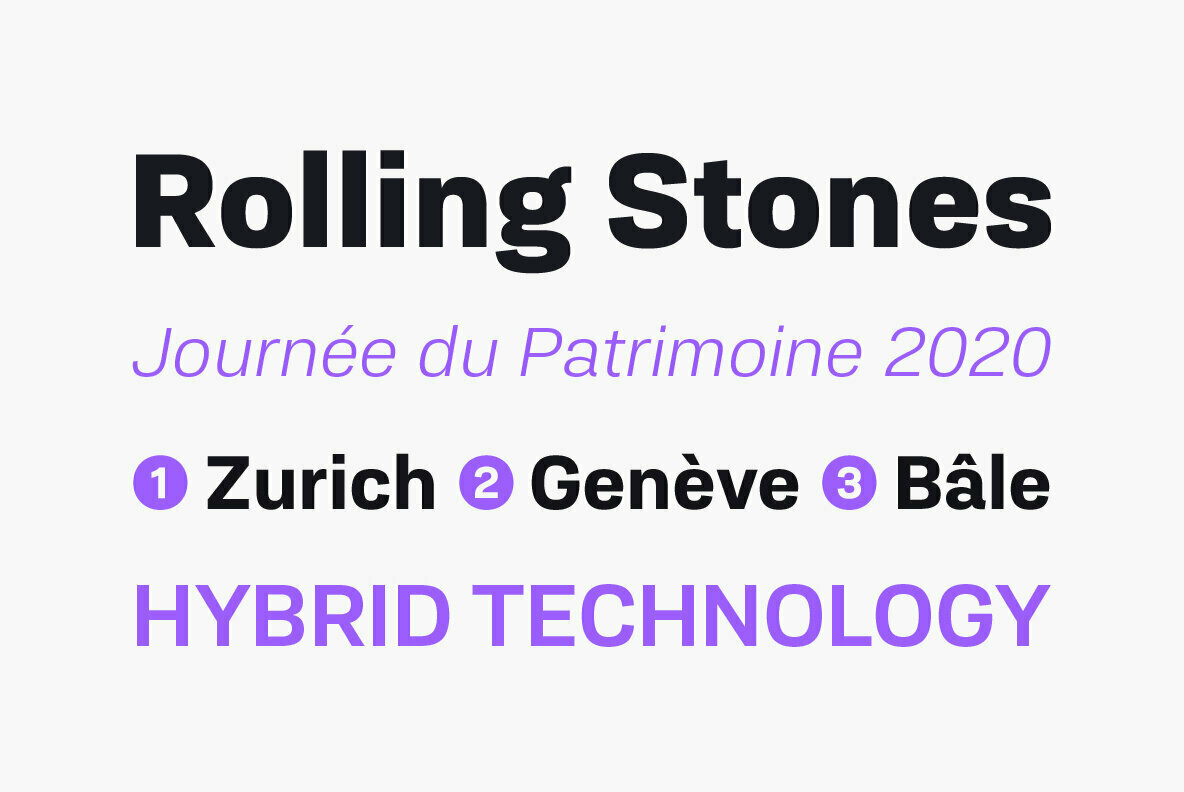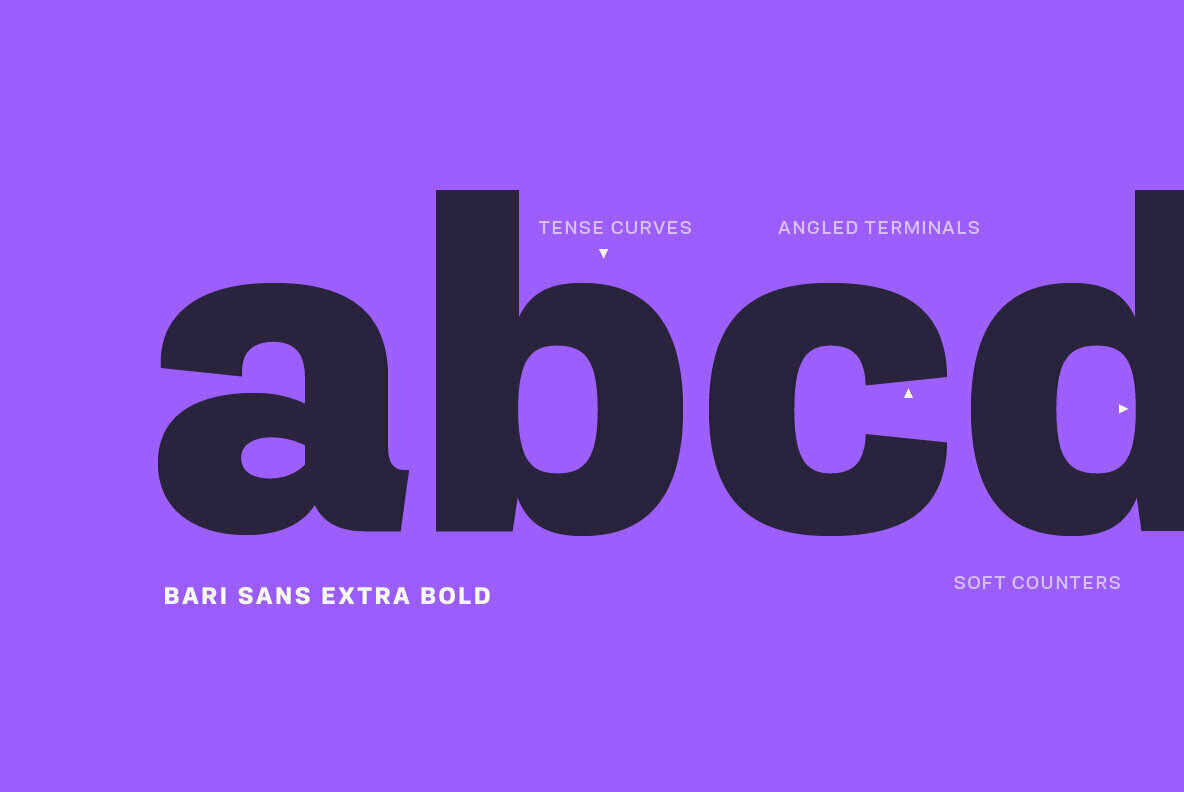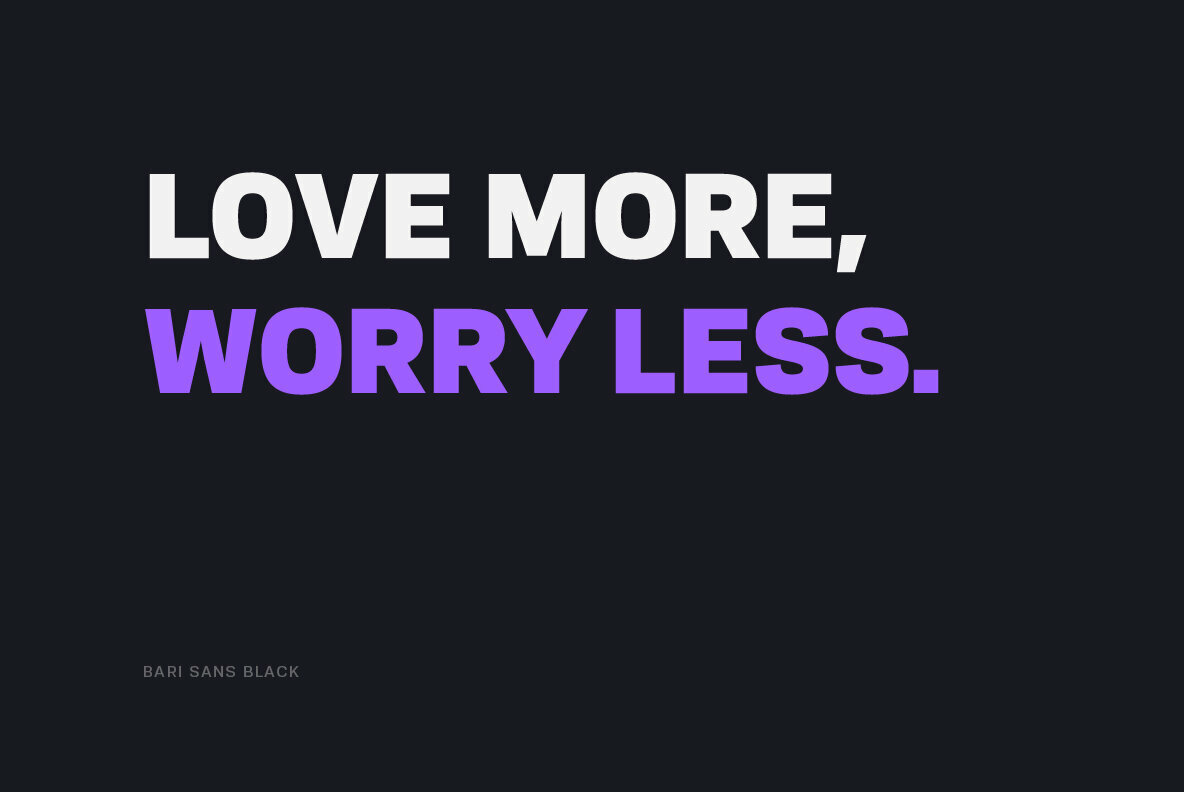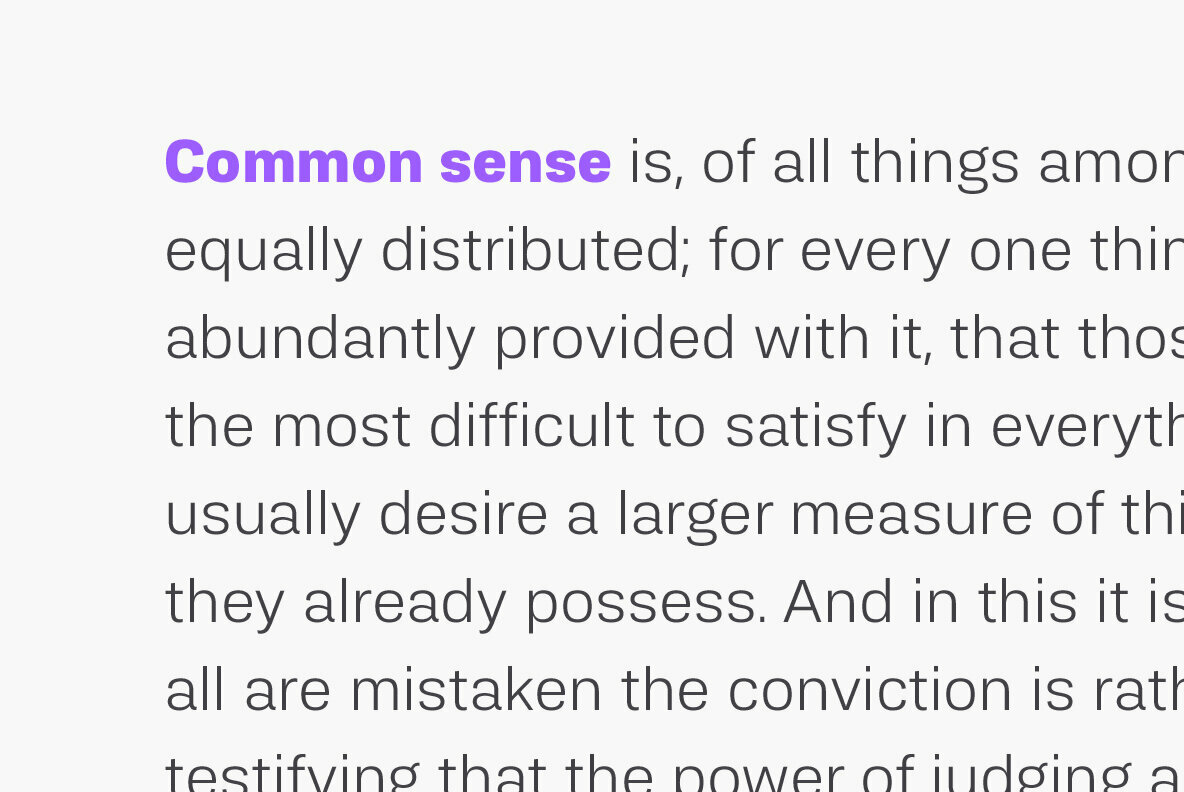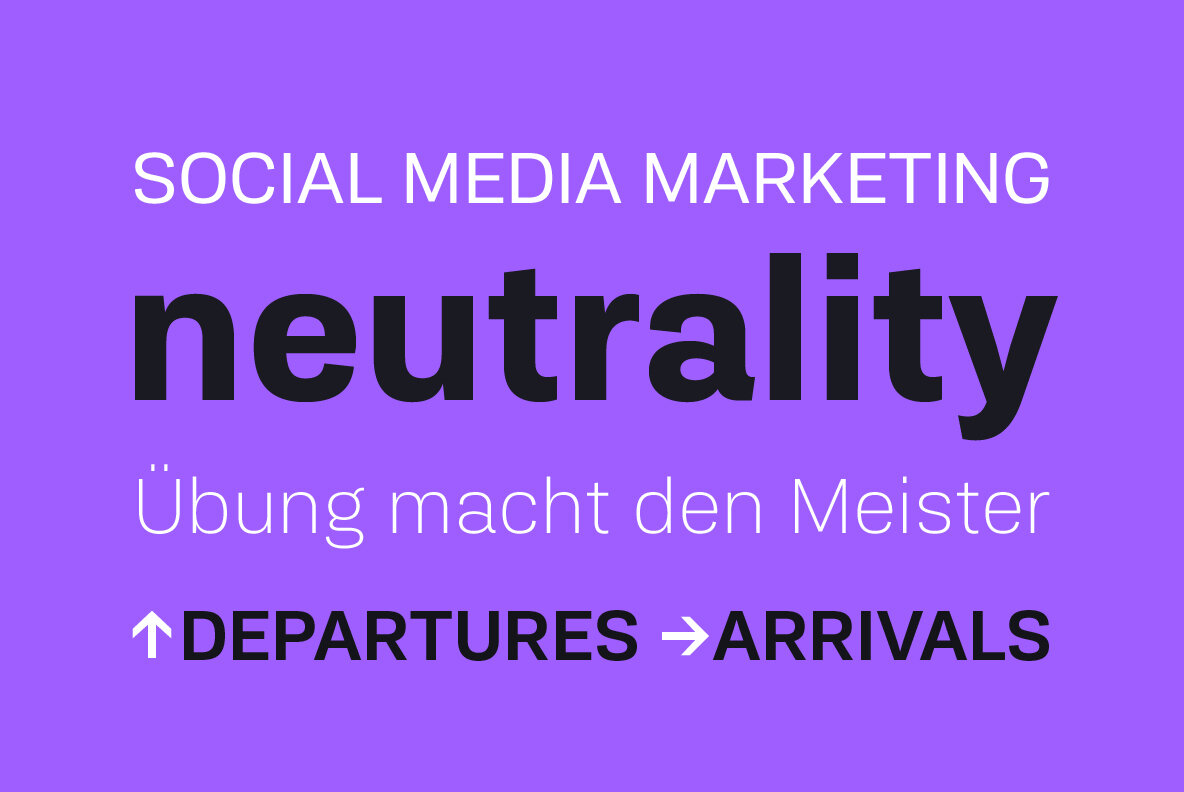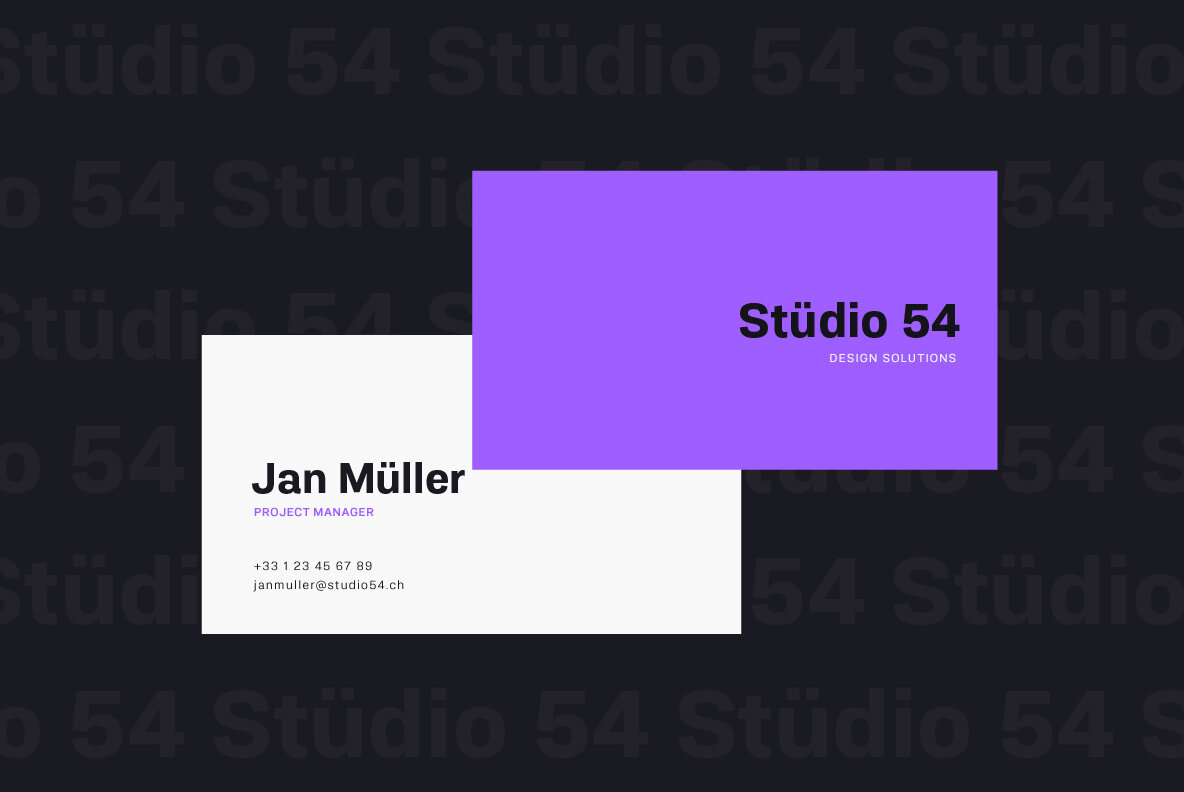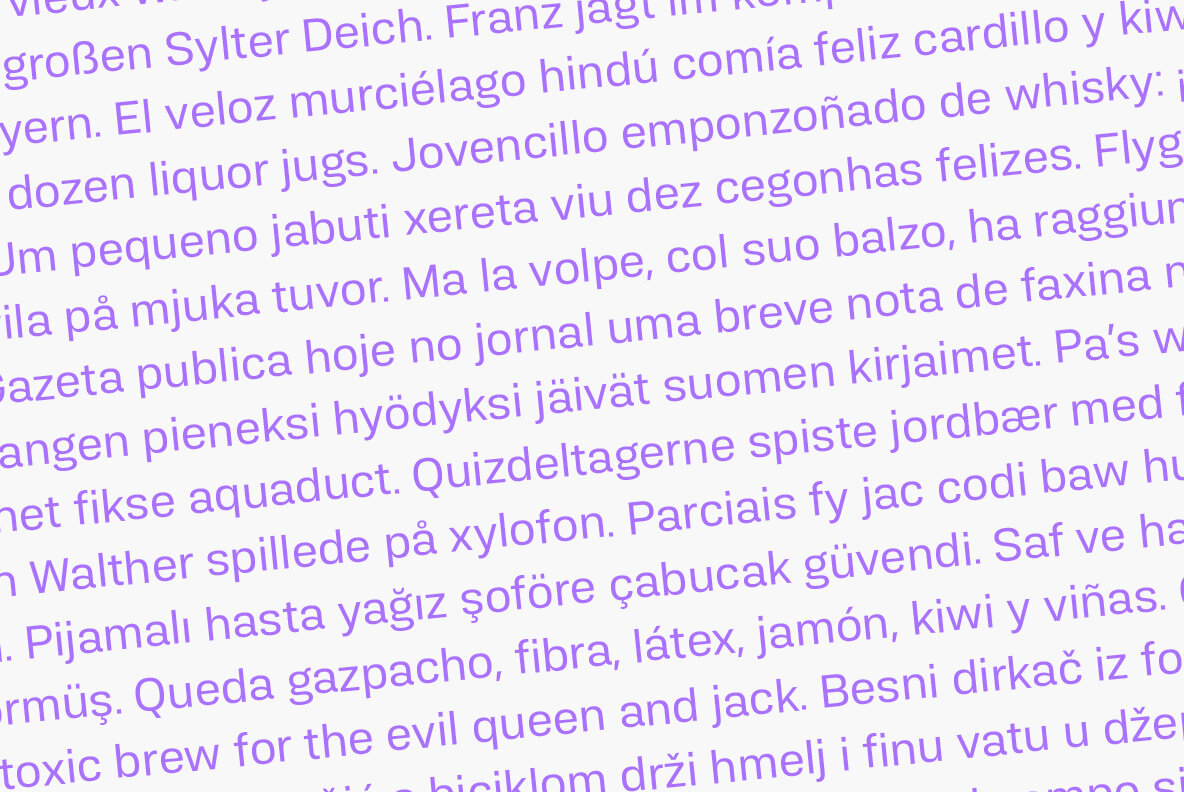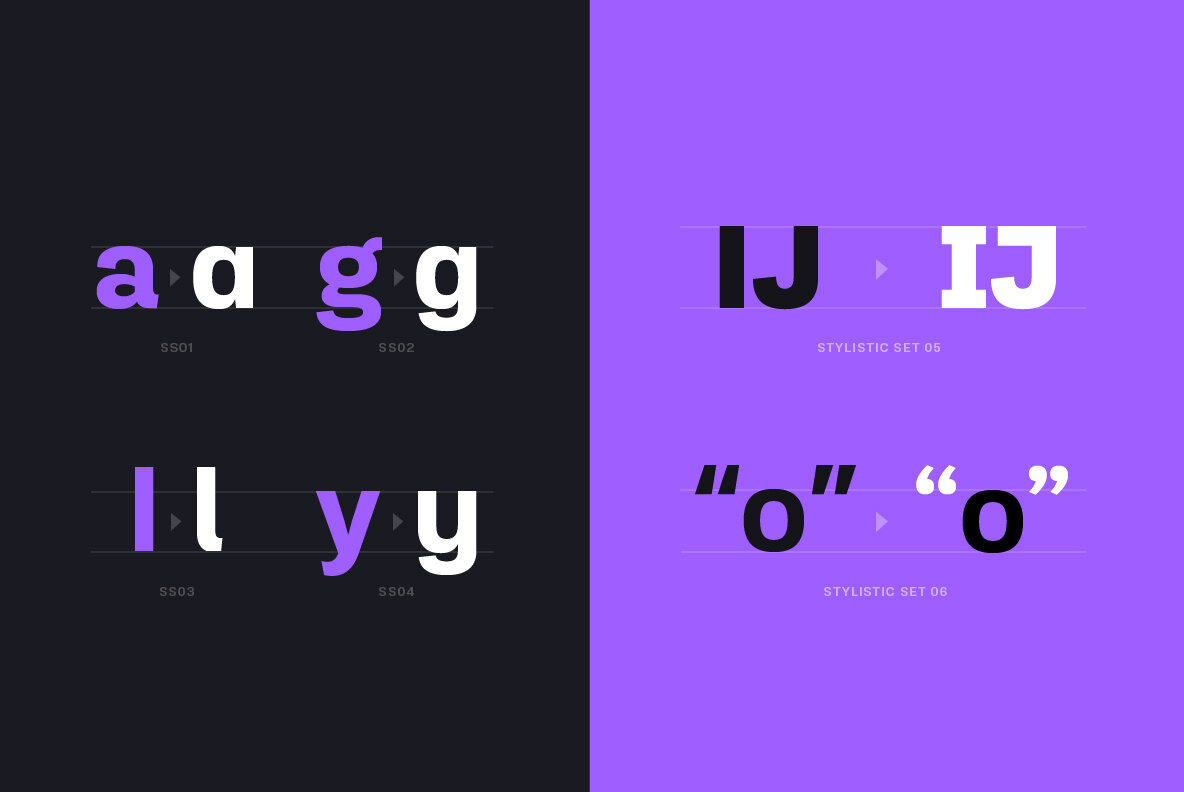
Bari Sans Font
Bari Sans is a solid grotesque typeface with tense curves and compact proportions, but also more subtle details like the angled terminals, the double storey g and the distinctive shape of the lowercase a. Designed to look robust and masculine, this family is also quite versatile with its 9 weights, ranging from thin to black, plus matching italics.
Each font include over 500 glyphs with several OpenType features and 8 stylistic sets: alternate lowercase a, g, l, and y, alternate uppercase I and J, alternate quotation marks... Tabular figures, localized forms, ligatures and automatic fractions are also present, among others.